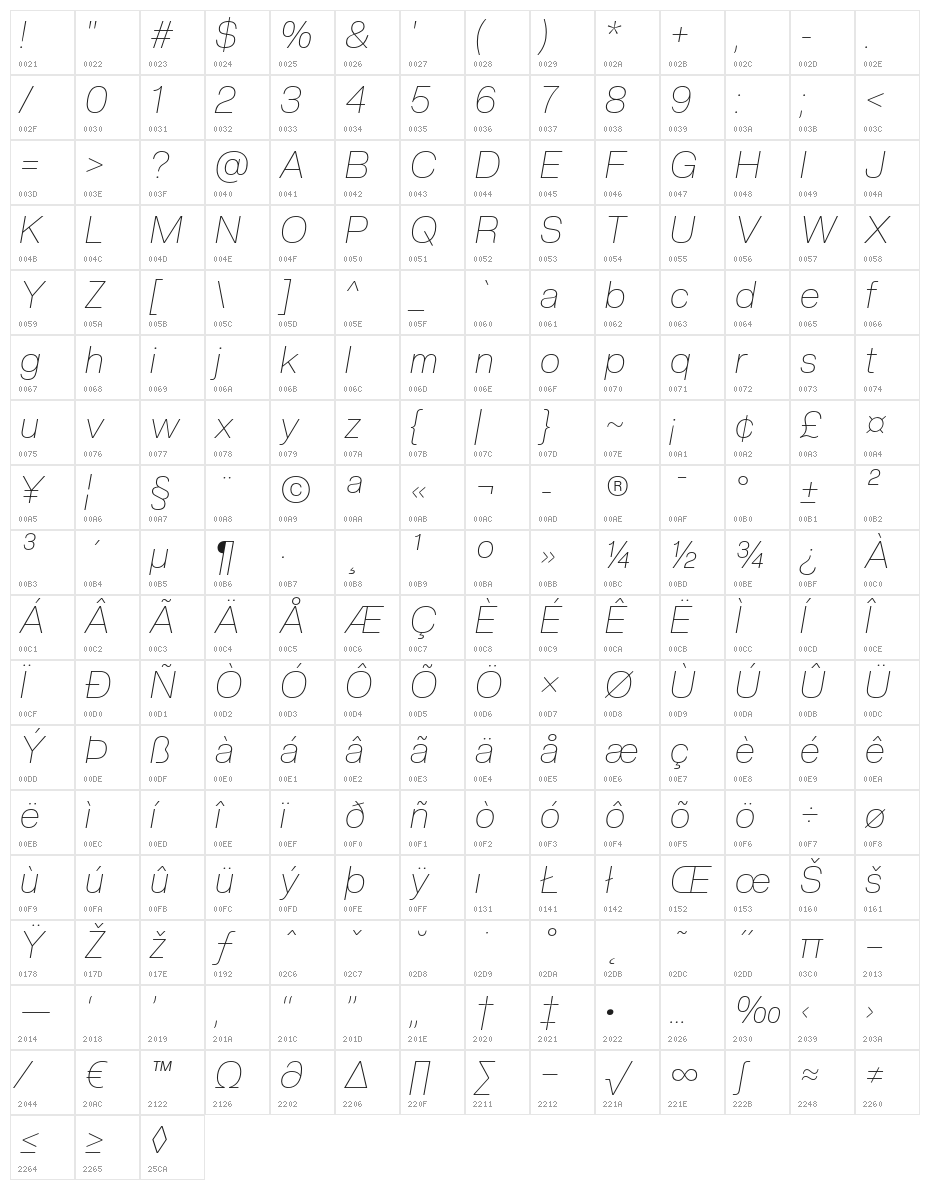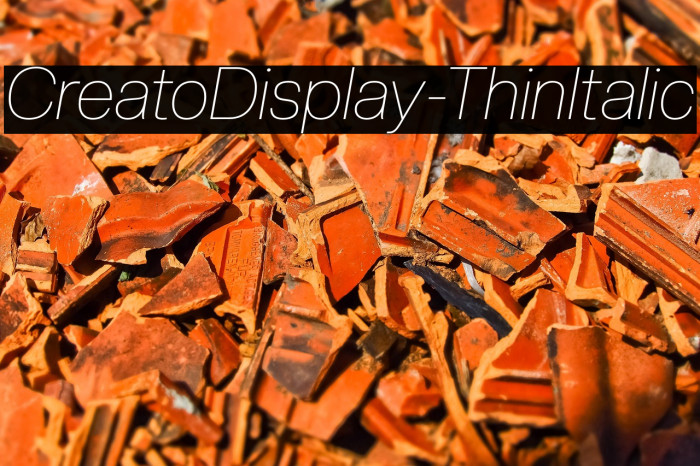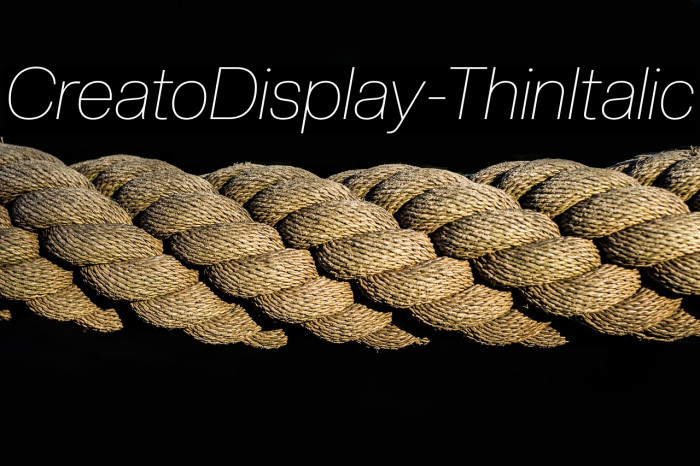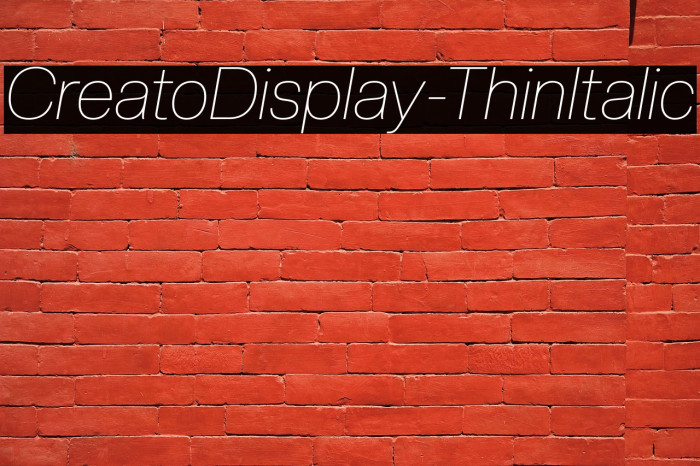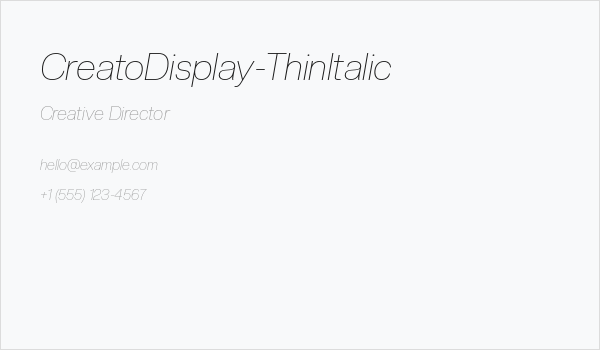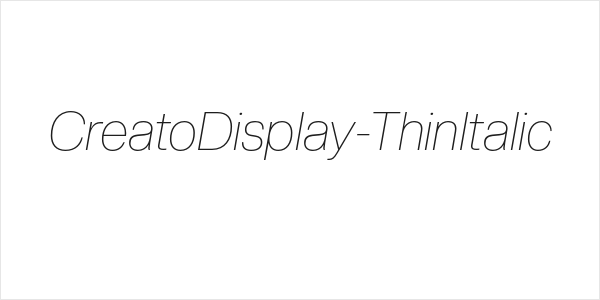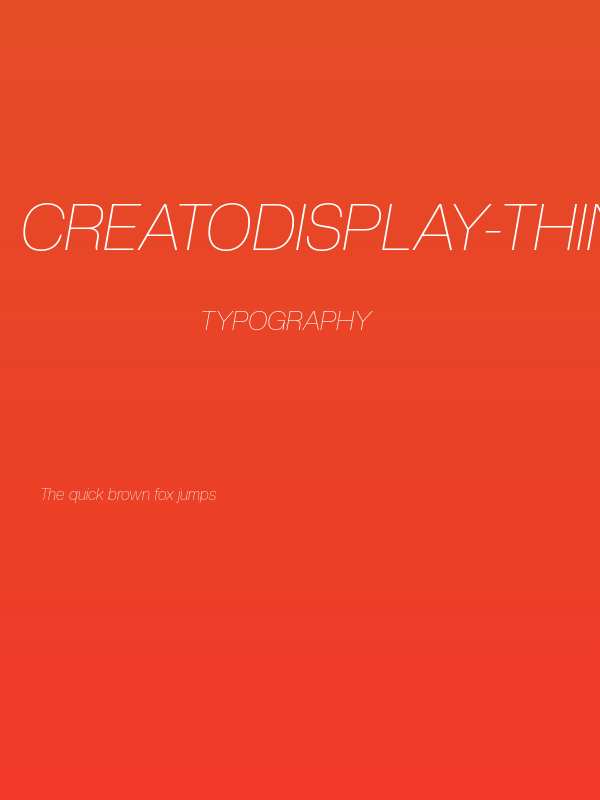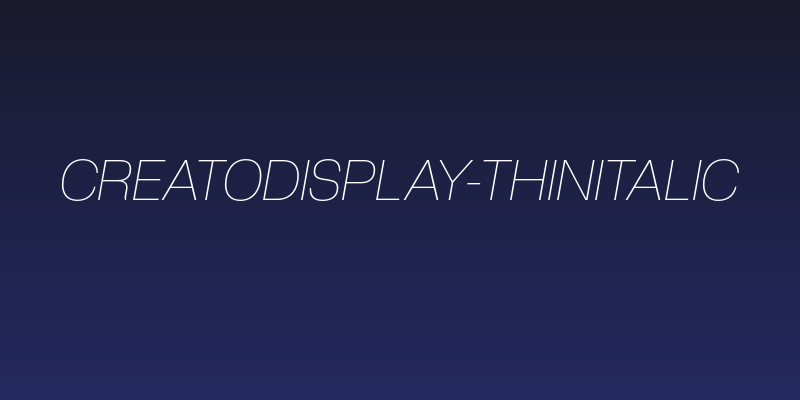
CreatoDisplay-ThinItalic Font
CreatoDisplay-ThinItalic Description
This font presents a sleek and modern aesthetic with its thin, elongated letterforms. The italic style adds a dynamic and elegant touch, making it suitable for contemporary design projects. The characters are evenly spaced, providing a clean and airy appearance. Its minimalistic design is accentuated by the high contrast between the thin strokes and the overall form, giving it a sophisticated and refined look. The font includes a full set of uppercase and lowercase letters, numerals, and a variety of special characters, making it versatile for various applications.
| Proposed Projects | Ideal for fashion magazines, luxury branding, modern websites, and elegant invitations. |